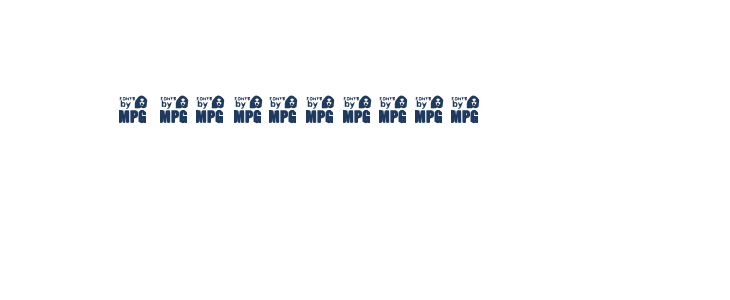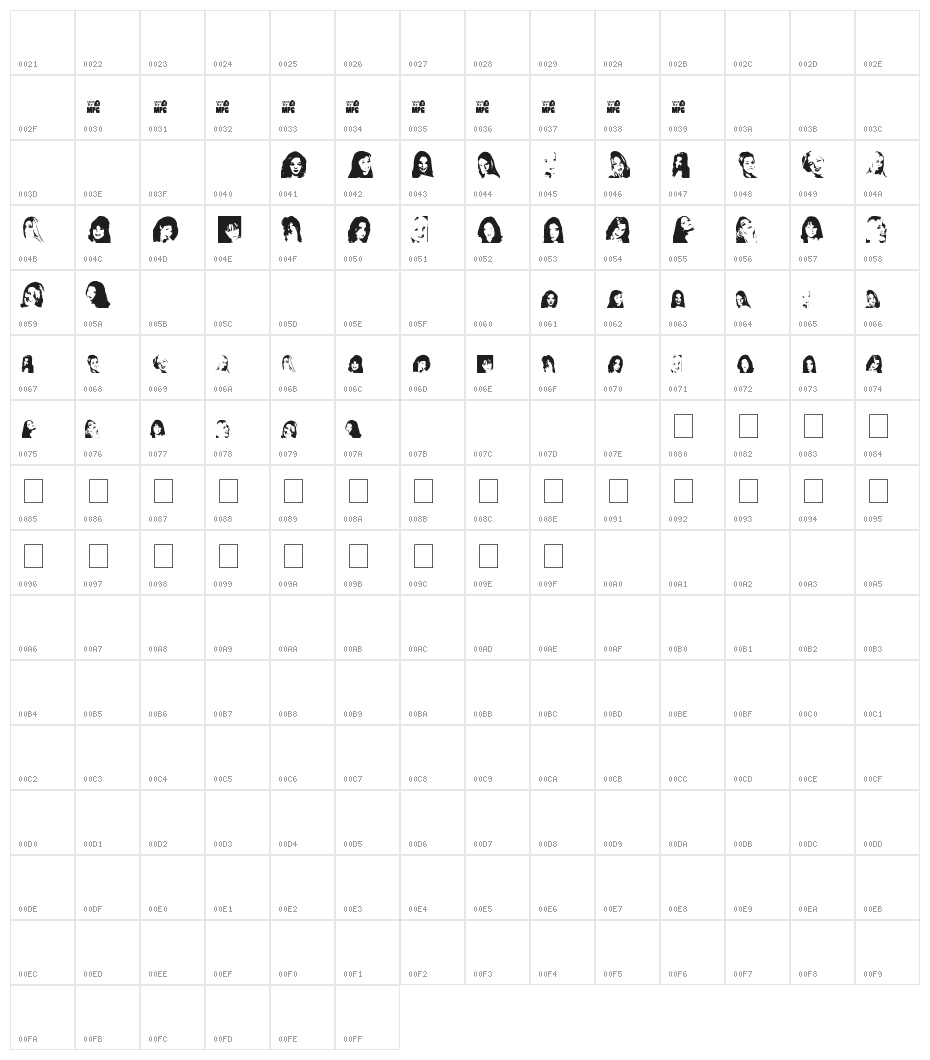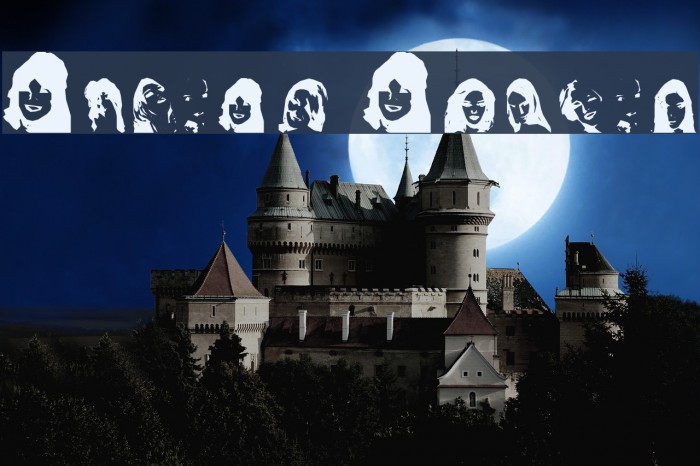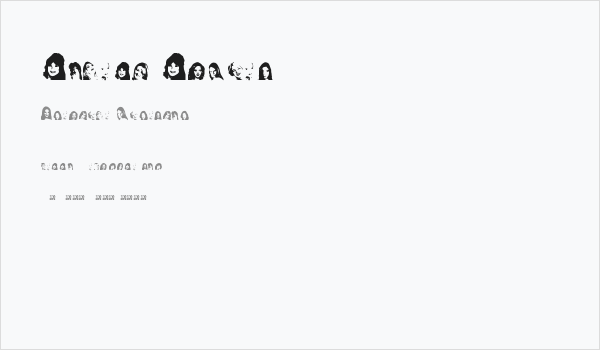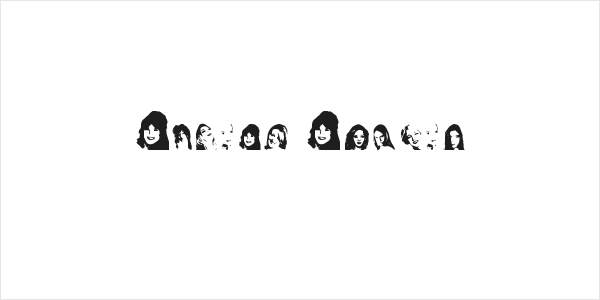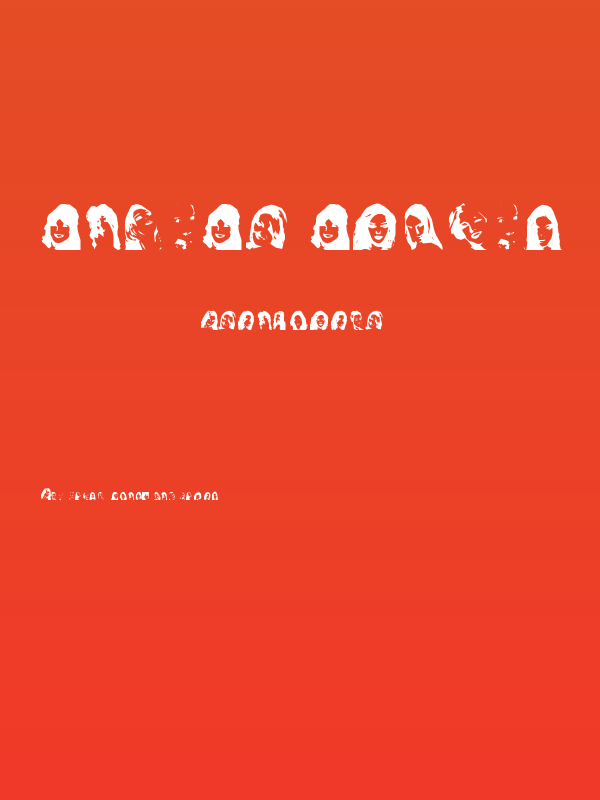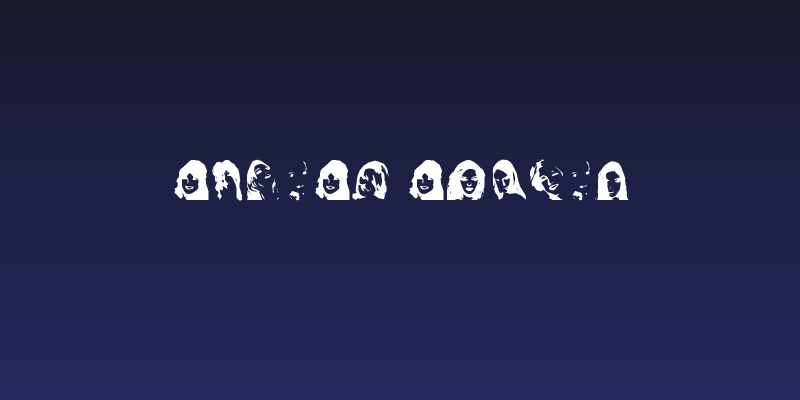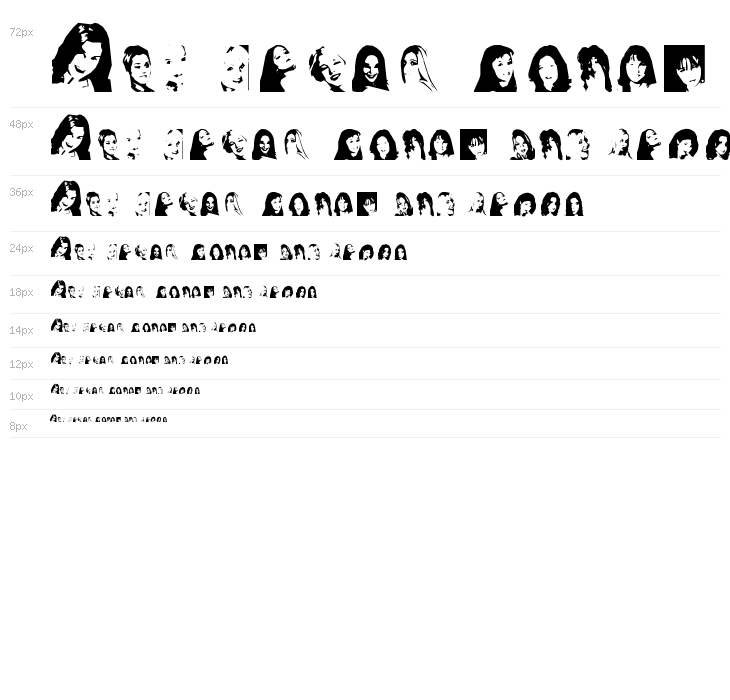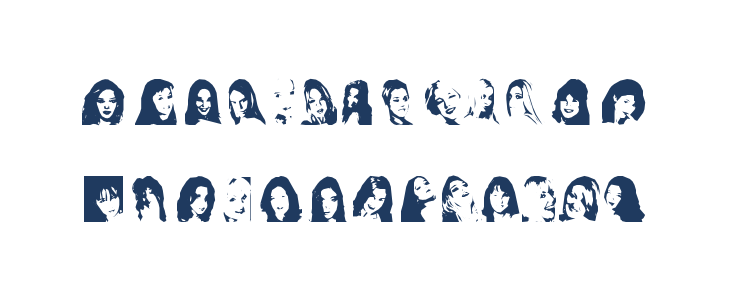
Lovely Ladies Font
Lovely Ladies Description
A decorative font composed of black-and-white stencil-style portraits of women, with each character represented by a different face or logo. The glyphs are highly stylized and pictorial rather than traditional alphanumeric forms.
| Overall Style | Decorative, Modern, Pictorial |
| Use Case | Logos, Posters, Display text, Artistic projects |
| Proposed Projects | Posters, album covers, event flyers, graphic design projects, novelty uses. |